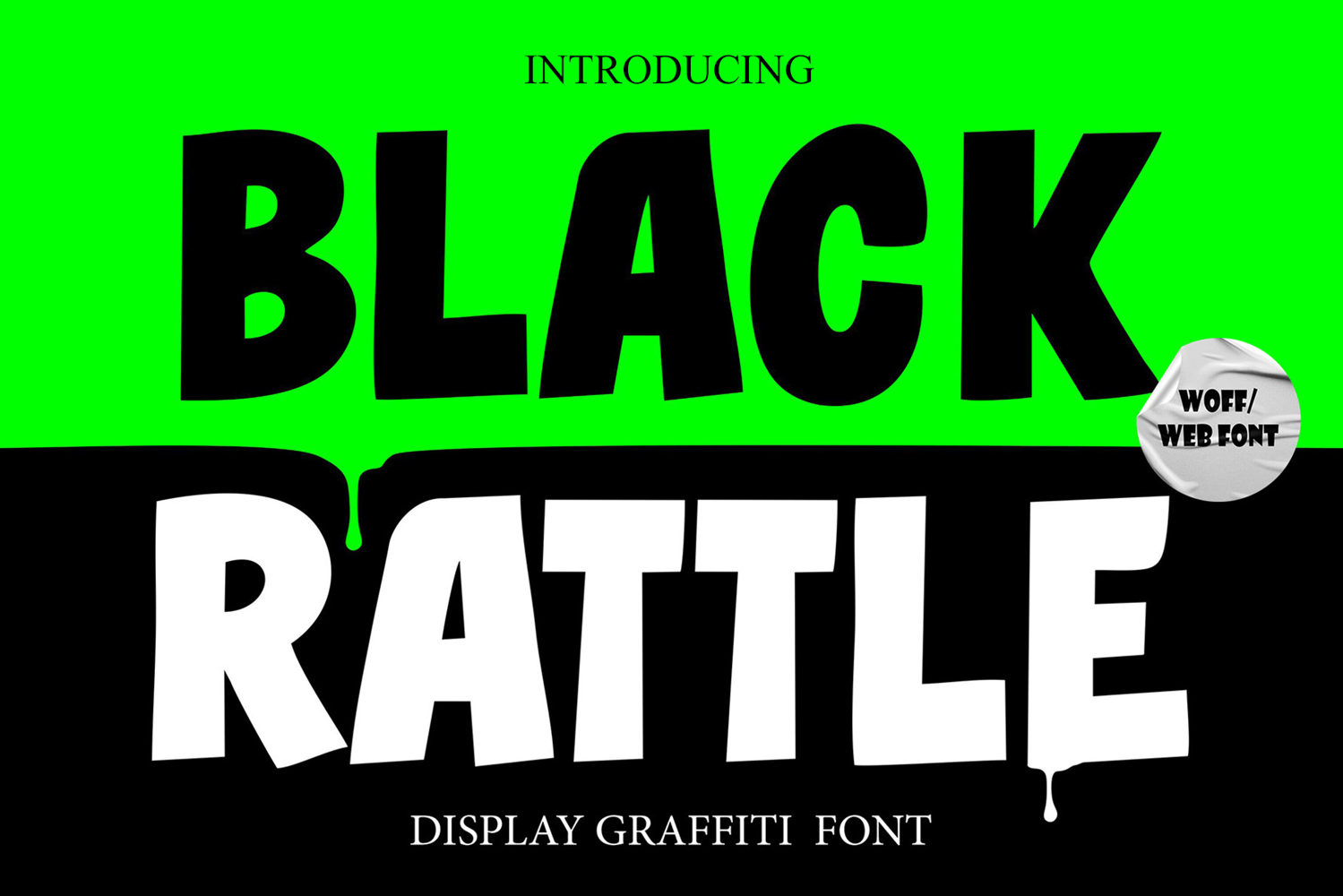
Black Rattle - Display Graffiti Webfont
Black Rattle is a bold display graffiti webfont with dripping details for instant street energy. Perfect for websites, blogs, or e-commerce stores that want a rebellious urban aesthetic, this font includes uppercase, lowercase, numerals, punctuation, and multilingual support. Its bold display form makes it perfect for banners, hero headers, and standout website titles. Delivered in WOFF format, it loads fast without losing quality. Black Rattle is your digital graffiti solution for bold, eye-catching online designs.